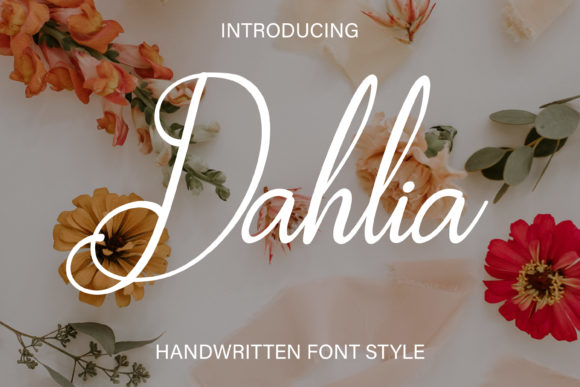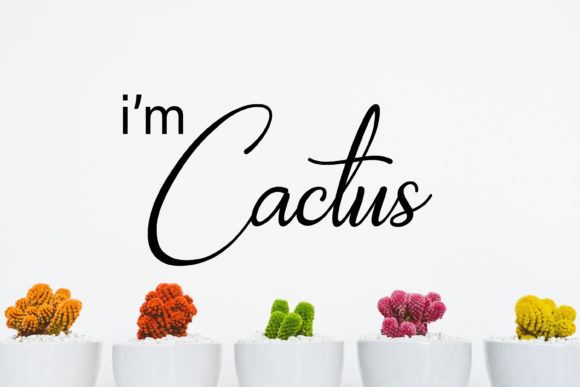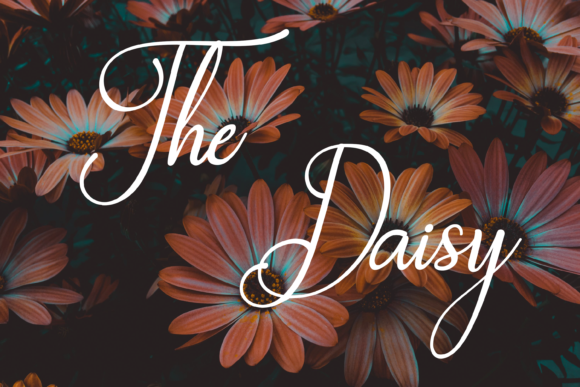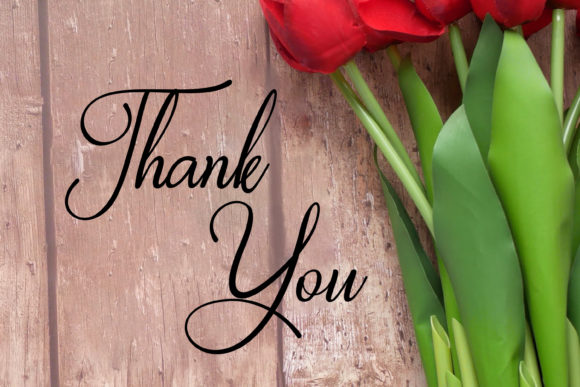
Dahlia Font
About Dahlia Font
**Dahlia Font: Free-Flowing Elegance for High-Quality Designs**
Introducing “Dahlia,” a free-flowing script font meticulously crafted for a range of design applications. Whether you’re working on packaging products, invitation cards, flyers, mockups, or event posters, “Dahlia” brings high-quality vibes with its beautiful and balanced character.
The charm of “Dahlia” lies in its seamless blend of free-flowing elegance and a well-balanced character. Each letter is crafted with precision, ensuring a harmonious and visually pleasing design that suits a diverse range of creative projects.
In product packaging, “Dahlia” becomes a valuable asset, enhancing the overall visual appeal of your products. Its free-flowing script adds a touch of sophistication, making your packaging more enticing to consumers.
For invitation cards and event posters, “Dahlia” contributes to an elegant and stylish aesthetic. The font’s balanced character brings a sense of refinement to your designs, setting the tone for memorable events.
Flyers and promotional materials benefit from the high-quality vibes of “Dahlia.” The font’s free-flowing script captures attention, making your marketing collateral more engaging and visually appealing.
When used in mockups, “Dahlia” adds a layer of authenticity and style. Its beautiful character elevates the overall design, creating a professional and polished look for your presentations.
The versatility of “Dahlia” extends to various design pools, making it suitable for a wide range of creative endeavors. Whether you’re working on branding, social media graphics, or editorial projects, the font’s balanced character ensures a consistent and elegant appearance.
“Dahlia” is more than just a font; it’s a tool for infusing high-quality vibes into your designs. Let its free-flowing elegance and balanced character elevate your creative projects, making each design a testament to style and sophistication.